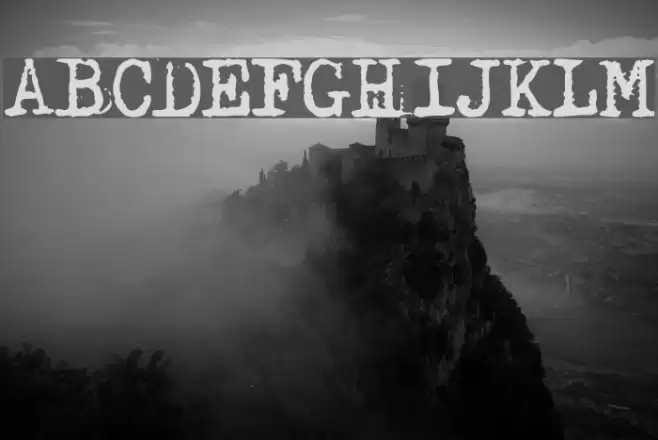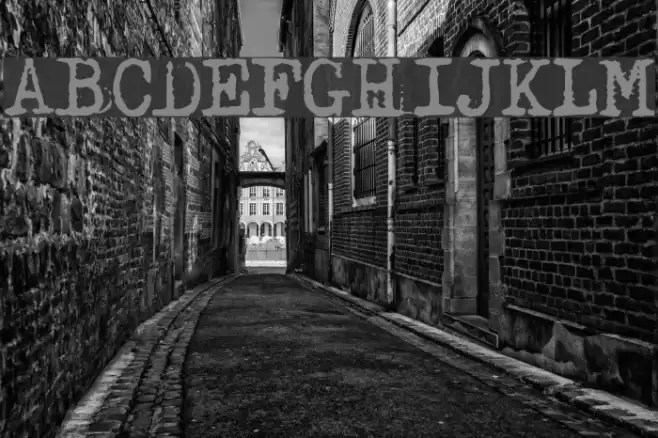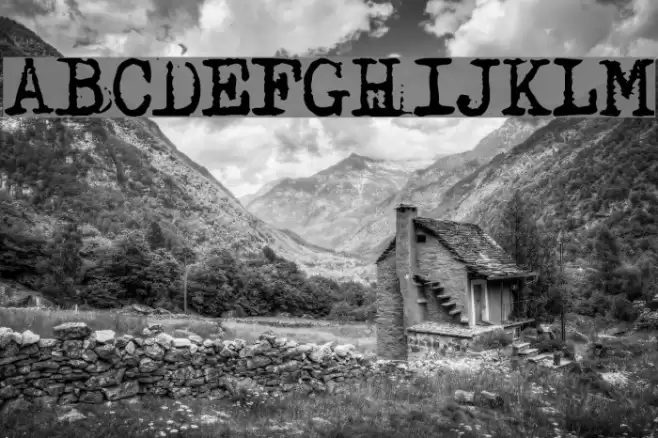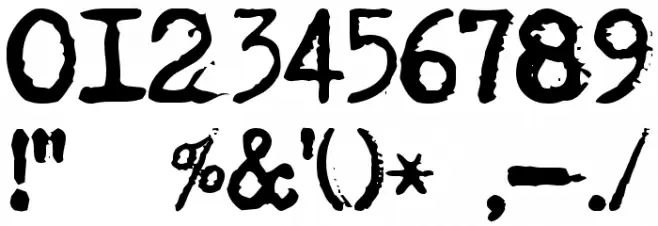
DS Moster
This font exhibits a distressed, grunge style with a textured appearance that mimics the look of aged, worn-out typewriter keys. The characters are bold and have an uneven, rough edge, giving them a vintage and rugged feel. The uppercase and lowercase letters maintain a consistent style, with noticeable imperfections that add to the font's charm. The numerals and special characters follow the same design, ensuring uniformity across all glyphs. This font is ideal for projects that require a touch of nostalgia or a gritty, urban aesthetic.
A distressed, grunge-style font with a vintage, textured appearance.
- Proposed Projects: Ideal for vintage posters, album covers, urban-themed designs, and retro branding.
- Overall Style: Vintage
- Use Case: Headlines, Logos, Posters